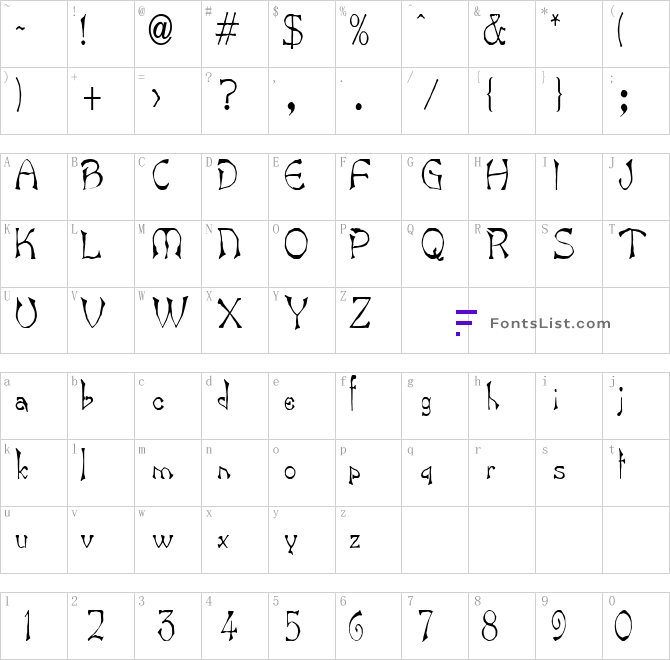
• Font Name:Bart Thin
• Subfamily:Normal
• Subfamily:Altsys Fontographer 4.1 Bart Thin Normal
• Full Name:Bart Thin Normal
Bart-Thin-Normal.ttf is a very beautiful artistic font, Bart-Thin-Normal.ttf is widely used in the design and printing of various books and pictures,Bart-Thin-Normal.ttf has a strong visual impact,Bart-Thin-Normal.ttf is a commonly used font in newspapers, magazines and books, and is used in posters, e-commerce Poster design, store design, logo design, font design and other fields.Bart-Thin-Normal.